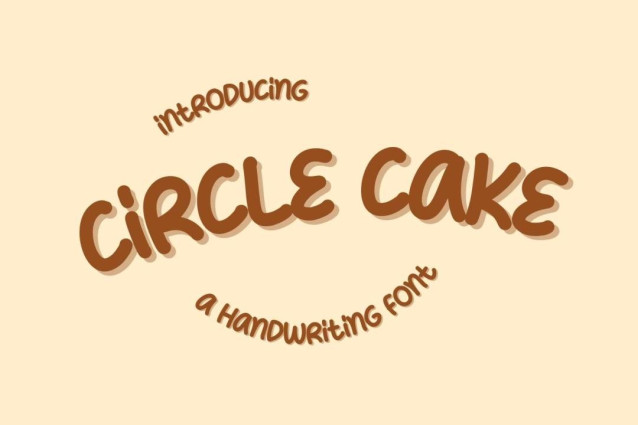
Circle Cake Font
Circle Cake Font a sweet and friendly handwritten font. Cute and fun, this font is ideal for writing wedding invitations, cards, or any other design that might need a fun touch!